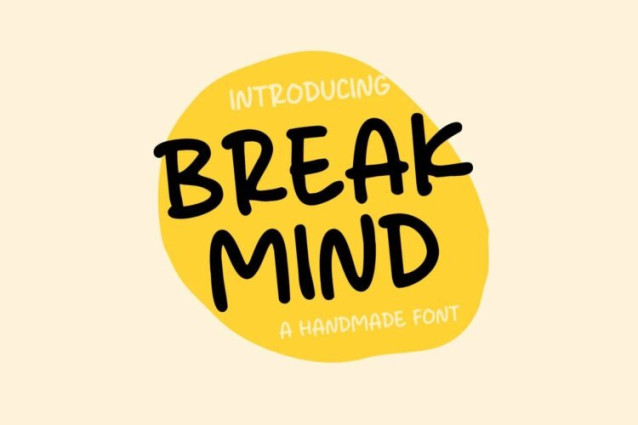
Break Mind Font
Break Mind Font is a simple and friendly handwritten font. Its natural and unique style makes it incredibly fitting to a large pool of designs. The only limit is your imagination!